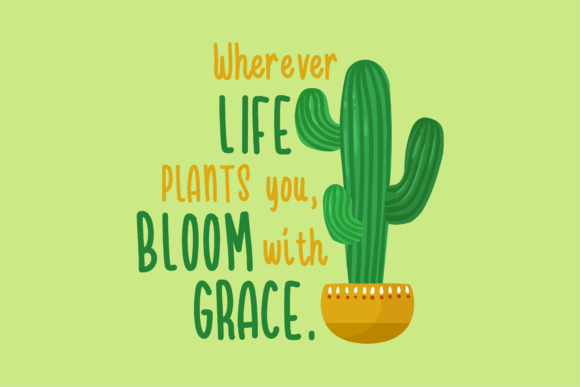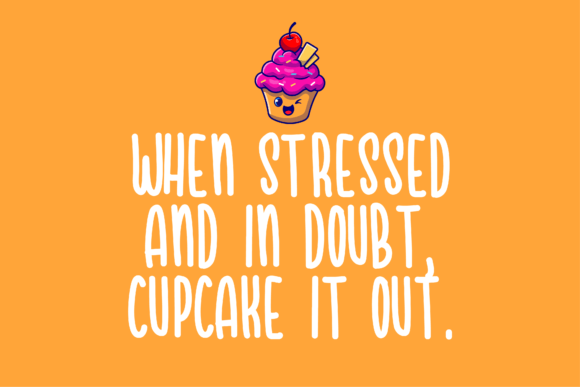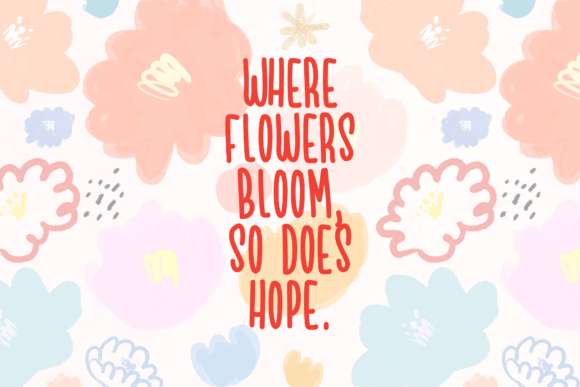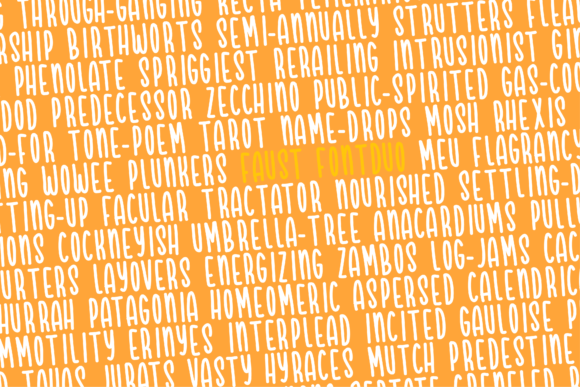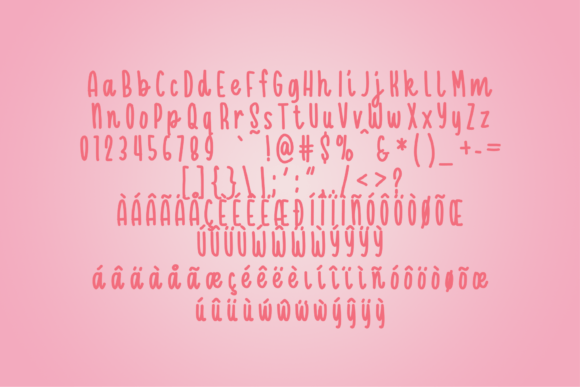
Introducing Faust Font: The Cute and Friendly Handwritten Display Font
Are you tired of using the same old fonts for your designs and crafts? Look no further! Faust Font is a charming and friendly handwritten display font that is sure to become your new go-to font for all occasions. In this article, we’ll dive into the features and benefits of Faust Font, and explore how it can elevate your digital designs, presentations, crafts, and greeting cards.
The Characteristics of Faust Font
Faust Font is a beautifully crafted handwritten display font that exudes a sense of warmth and friendliness. Its cute and playful appearance makes it perfect for a wide range of design projects, from digital graphics to handmade crafts. The font’s unique characteristics include:
- Handwritten style: Faust Font has a genuine handwritten feel that adds a personal touch to any design.
- Cute and friendly appearance: The font’s playful and charming appearance makes it perfect for designs that require a touch of whimsy.
- Display font: Faust Font is designed to make a statement, making it ideal for headings, titles, and other display text.
Uses for Faust Font
Faust Font is an incredibly versatile font that can be used for a wide range of design projects, including:
- Crafts: Add a personal touch to your handmade crafts, such as scrapbooking, card making, and DIY projects.
- Digital design: Use Faust Font to create stunning digital graphics, such as social media posts, blog headers, and email newsletters.
- Presentations: Add a touch of personality to your presentations and make them more engaging.
- Greeting cards: Create beautiful and unique greeting cards for special occasions.
Why Choose Faust Font?
With so many fonts available, why choose Faust Font? Here are just a few reasons why Faust Font stands out:
- Unique and distinctive: Faust Font has a one-of-a-kind appearance that will set your designs apart from the rest.
- Easily readable: Despite its playful appearance, Faust Font is easy to read, making it perfect for both digital and print designs.
- Versatile: Faust Font can be used for a wide range of design projects, from formal to informal.
Tips for Using Faust Font
To get the most out of Faust Font, here are a few tips to keep in mind:
- Use it as a display font: Faust Font is designed to make a statement, so use it as a display font for headings and titles.
- Pair it with other fonts: Experiment with pairing Faust Font with other fonts to create a unique and visually appealing design.
- Experiment with colors and textures: Add an extra layer of depth to your design by experimenting with different colors and textures.
In conclusion, Faust Font is a charming and friendly handwritten display font that is sure to become your new go-to font for all occasions. Its unique characteristics, versatility, and ease of use make it perfect for a wide range of design projects, from digital graphics to handmade crafts. Whether you’re a designer, crafter, or simply someone who loves to create, Faust Font is a must-have font that is sure to inspire and delight.